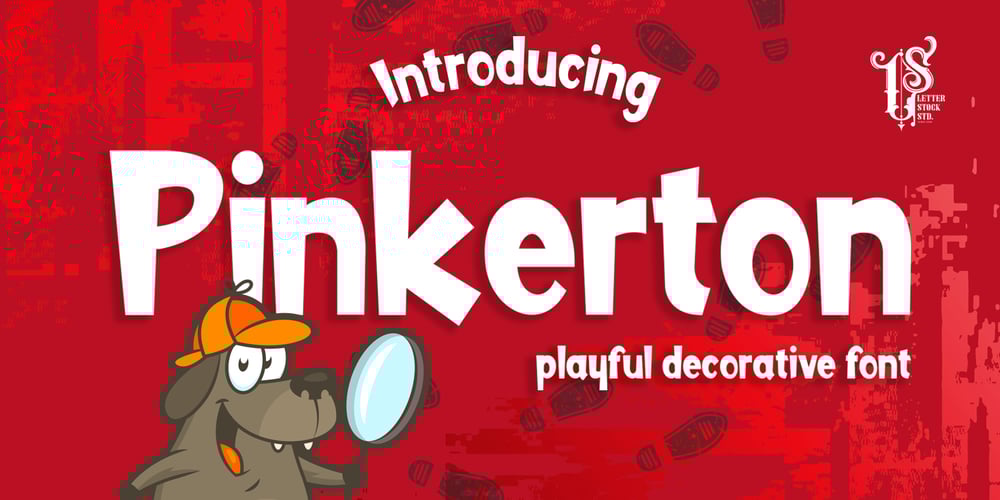
Pinkerton Font Family was designed by Studio LetterStock and published by LetterStock. Pinkerton contains 1 styles and family package options. PinkertonIntroducing Pinkerton font. It was inspired from a cartoon that i saw on television, and it was originally crafted by hand to add natural handmade feeling than i make it clean with pentool.We improvise it a little bit to make a playful feel, this font is bold so and it can look strong if you use it for branding or even title for your poster design with playful decorative style.Opentype featuresPinkerton Font is very good looking in playful decorative logotype, labels, t-shirt prints, product packaging, invitations, advertising and others.If you looking for a playful decorative font, than this item is a good choice for you because this font have a strong playful feel.This fonts works with folowing languages:Afrikaans, Albanian, Asu, Basque, Bemba, Bena, Chiga, Cornish, Danish, English, Estonian, Filipino, Finnish, French, Friulian, Galician, German, Gusii, Indonesian, Irish, Italian, Kabuverdianu, Kalenjin, Kinyarwanda, Low German, Luo, Luxembourgish, Luyia, Machame, Makhuwa-Meetto, Makonde, Malagasy, Malay, Manx, Morisyen, North Ndebele, Norwegian Bokmål, Norwegian Nynorsk, Nyankole, Oromo, Portuguese, Romansh, Rombo, Rundi, Rwa, Samburu, Sango, Sangu, Scottish Gaelic, Sena, Shambala, Shona, Soga, Somali, Spanish, Swahili, Swedish, Swiss German, Taita, Teso, Vunjo, ZuluThank you for using this font.LS